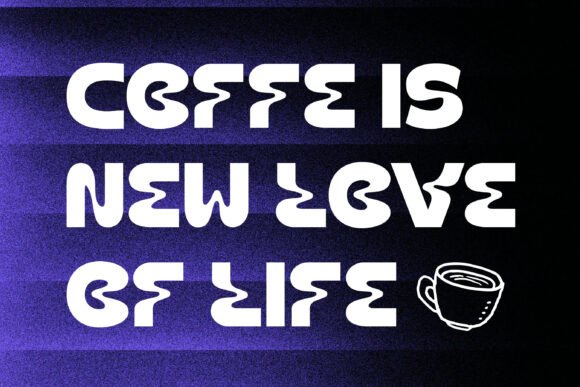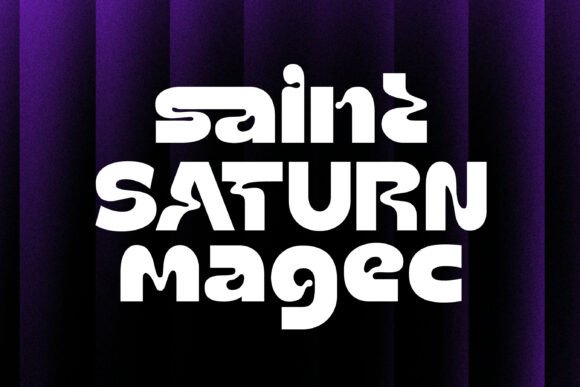
Introduction to Liqude Font
As designers, we’ve all had those moments when we’re searching for the perfect font to elevate our creative project. You know, that one font that says “I’m a professional” and makes our design stand out from the crowd. For me, that moment happened when I stumbled upon the Liqude Font. Its unique liquid-inspired design had me hooked from the very first glance.
| 👤 Author | Twistystd |
The Liqude Font is more than just a pretty face; it’s a high-quality design resource that adds a dynamic and eye-catching touch to any project. With its smooth, flowing shapes and organic curves, this modern display typeface brings fluidity and motion into your typography, making it perfect for designs that want to stand out with a bold and experimental touch.
Key Features of Liqude Font
- High-quality design resource with a transparent background, perfect for creative projects.
- Unique characteristic: the Liqude Font features a futuristic and sleek design, ideal for modern and tech-related projects.
Honest Review: Liqude Font
I recently had the chance to work with Liqude Font for a creative project, and I was pleasantly surprised by its high quality. As a design resource, it’s definitely worth considering for any project that requires a unique and modern aesthetic.
The font itself is a beautiful addition to any design. It features a transparent background, which makes it easy to use and customize in various design applications.
Here are some of the things that work well:
- ✨ Unique and modern design: Liqude Font is perfect for projects that require a touch of sophistication and elegance.
- ✨ High-quality vectors: The font’s vectors are crisp and clean, making it perfect for use at various sizes and resolutions.
However, I did notice a few limitations:
- ⚠️ Limited character set: The font only includes a limited character set, which may be a problem for designers who need to create text-heavy designs.
- ⚠️ Not suitable for all design applications: While Liqude Font is perfect for digital designs, it may not be the best choice for print-based designs.
Overall, I was impressed with Liqude Font and would definitely recommend it to designers who are looking for a unique and modern font for their creative projects.
Tips for Getting the Most Out of Liqude Font
Some tips for getting the most out of Liqude Font include:
– Use it for high-quality, creative projects.
– Take advantage of the transparent background feature to add depth to your designs.
– Experiment with different font sizes and styles to find the perfect fit for your project.
Liqude Font is commonly used for:
– Designing business cards and brochures.
– Creating social media graphics and advertisements.
– Developing brand identities and logos.